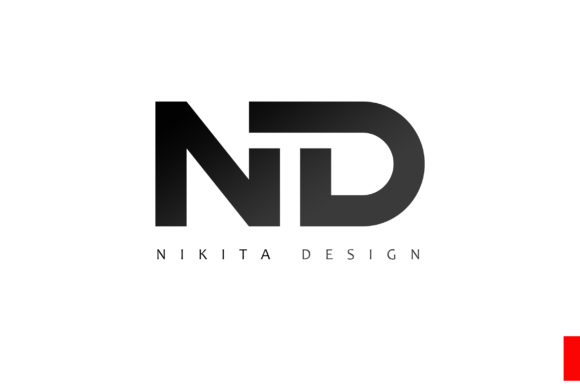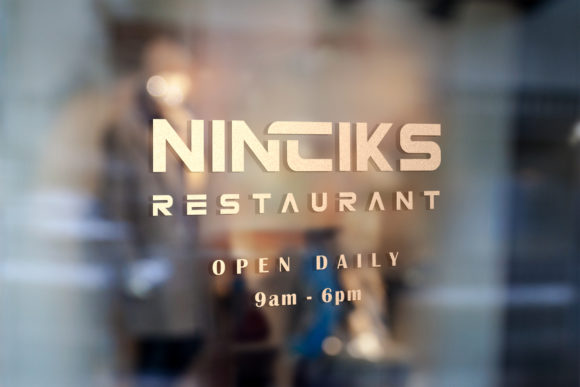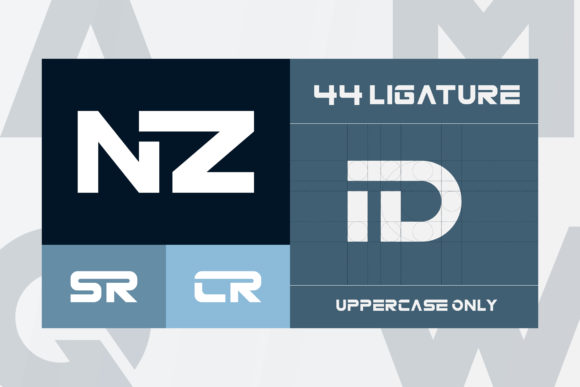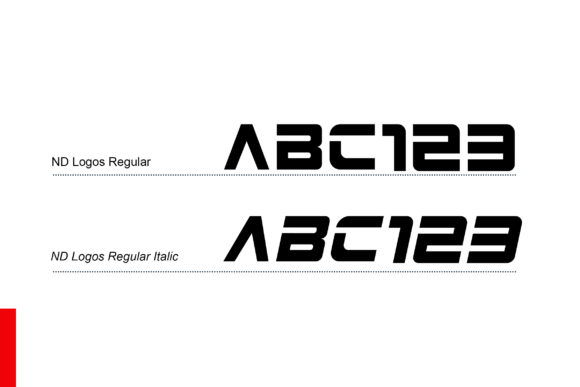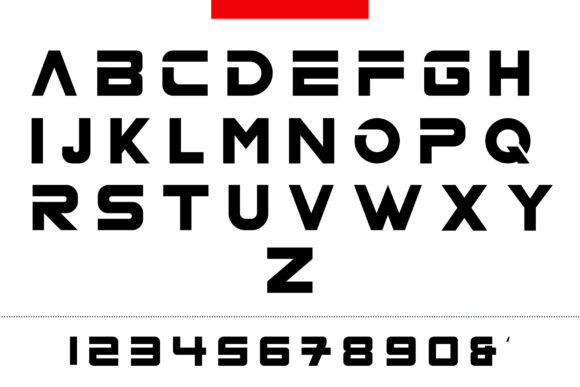
Introduction to Nd Logos Font
Nd Logos is a modern and minimalist display font.
Simple and incredibly adept to a variety of projects, this font makes each of your designs stand out .
Key Features of Nd Logos Font
Why Choose Nd Logos Font?
Nd Logos Font offers exceptional quality and versatility, making it a valuable addition to your design toolkit. Whether you’re creating for personal projects or commercial use, Nd Logos Font delivers professional results.